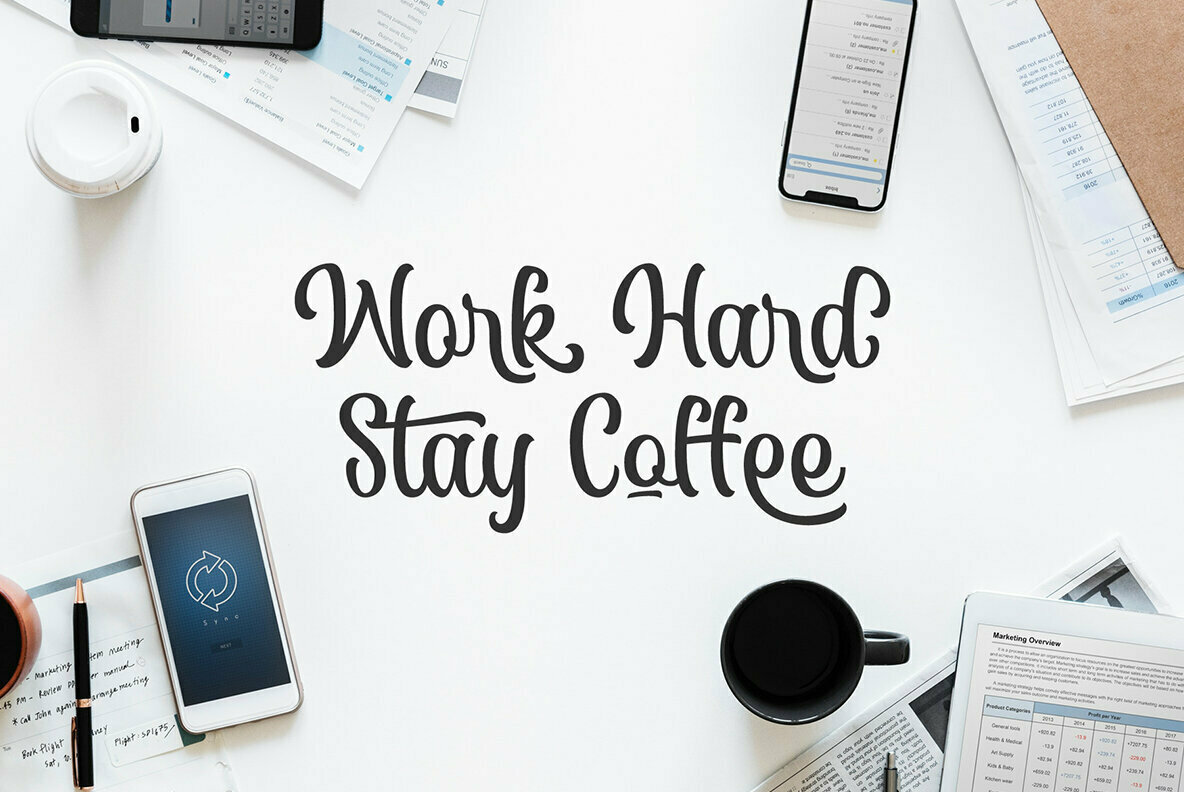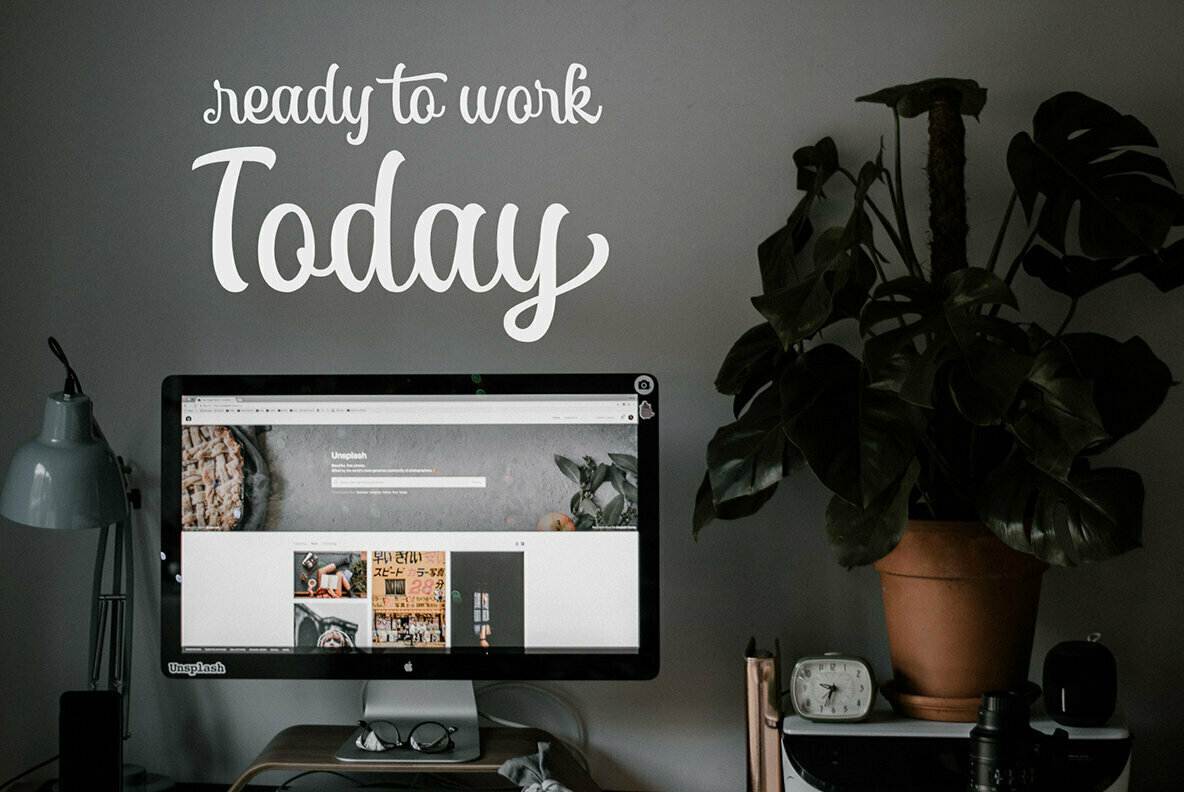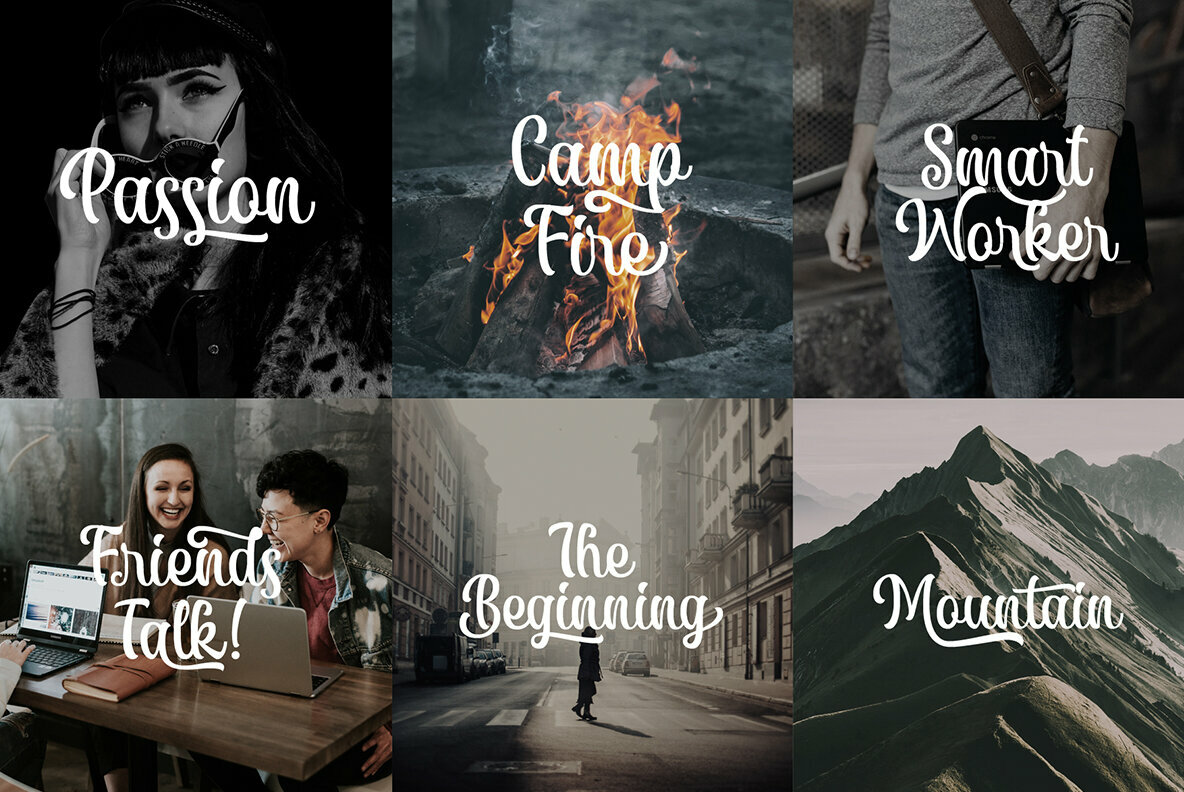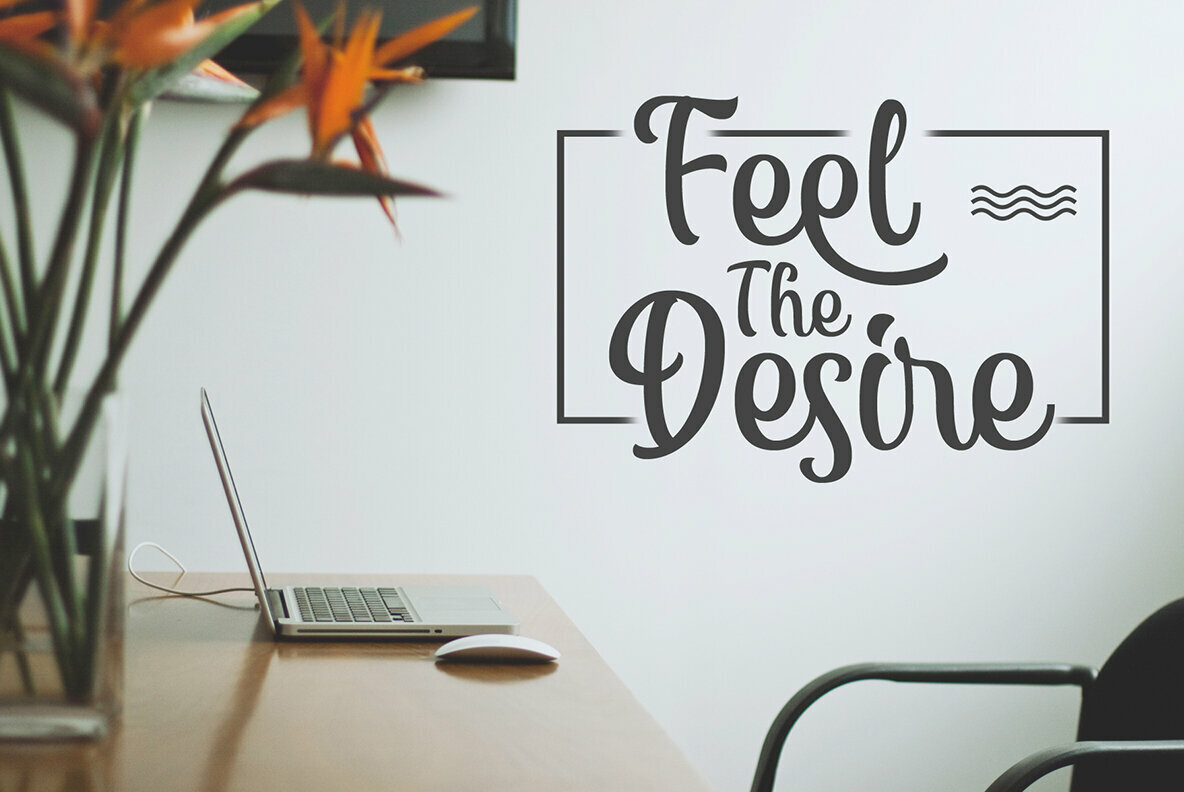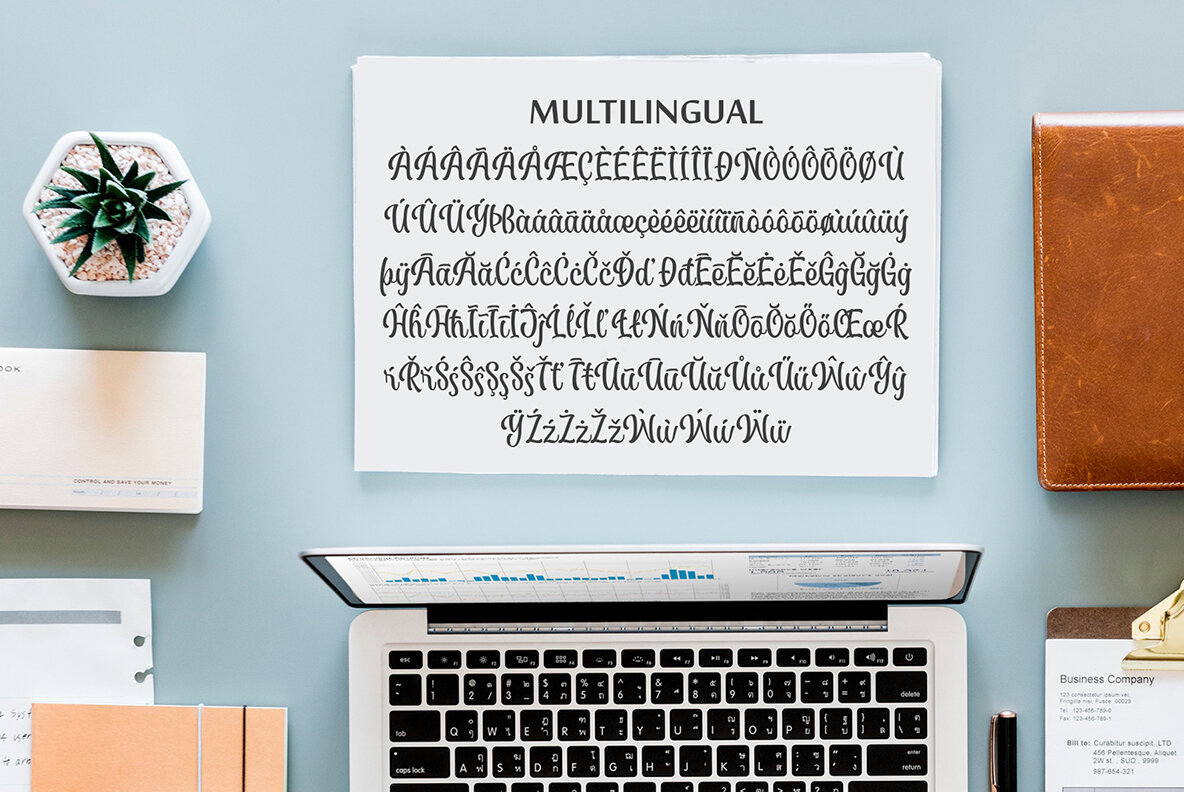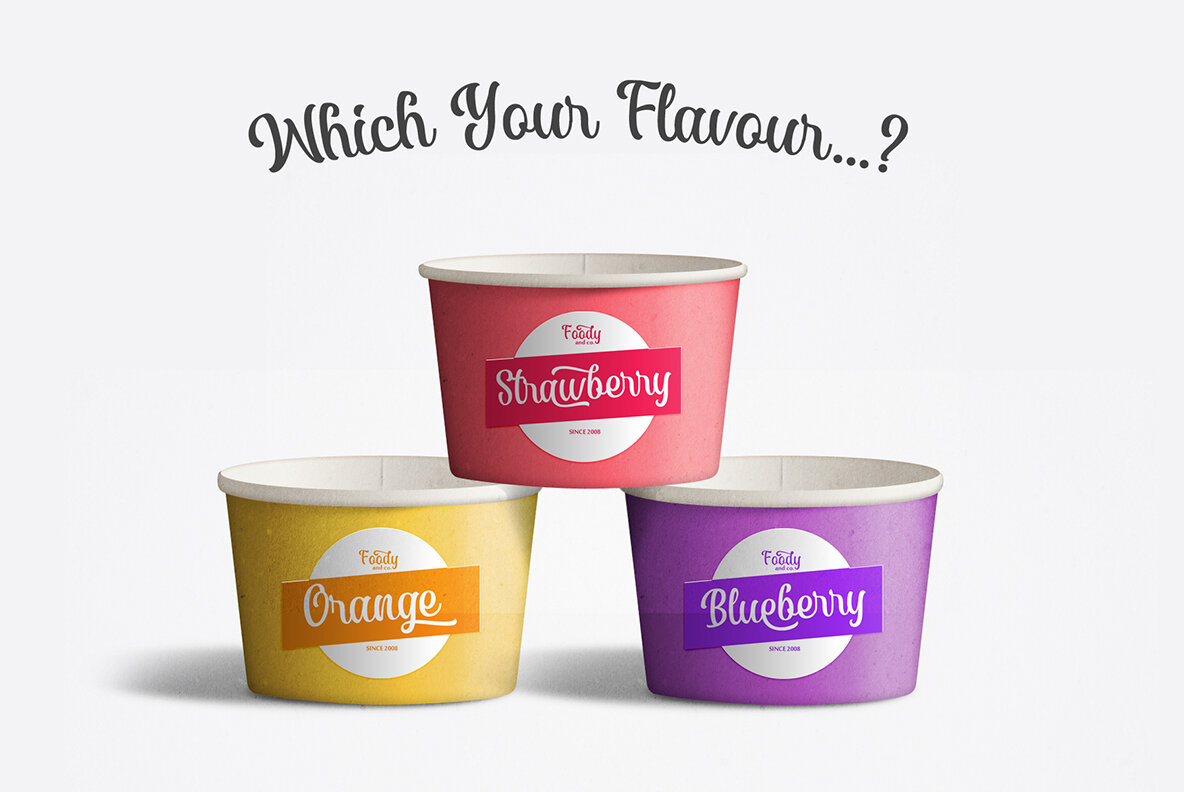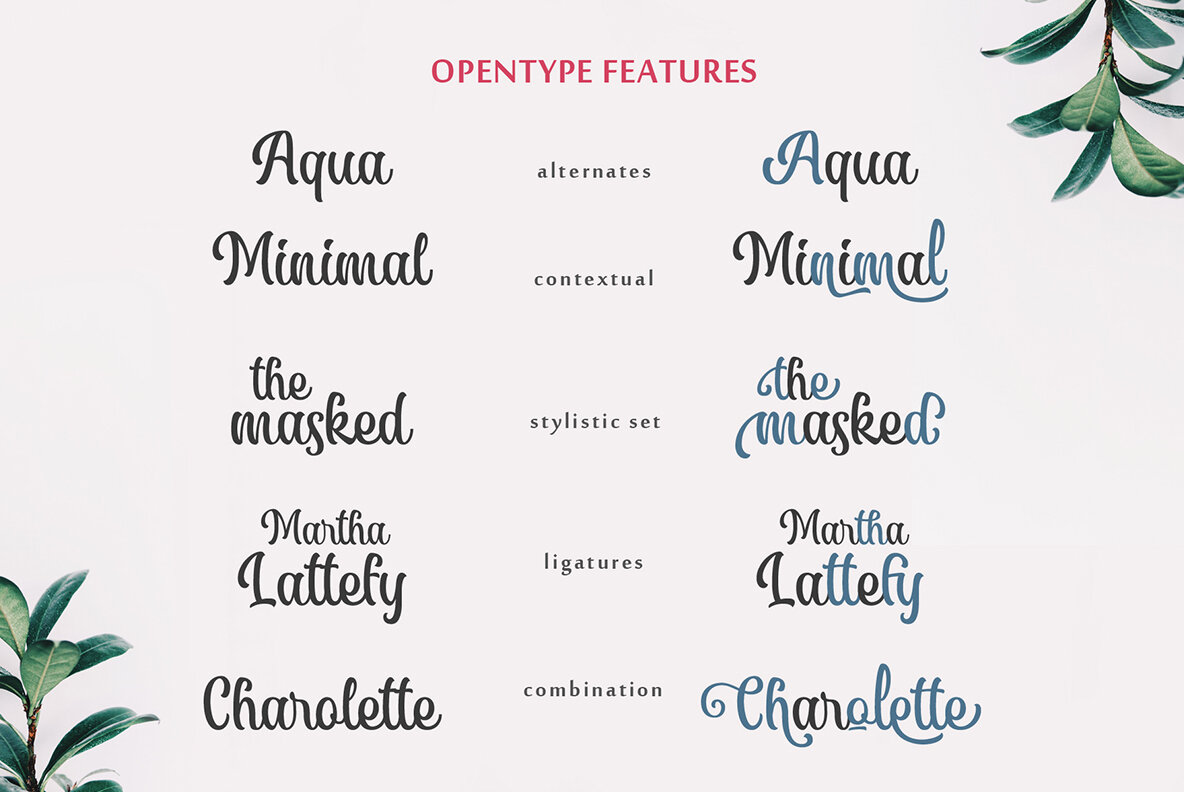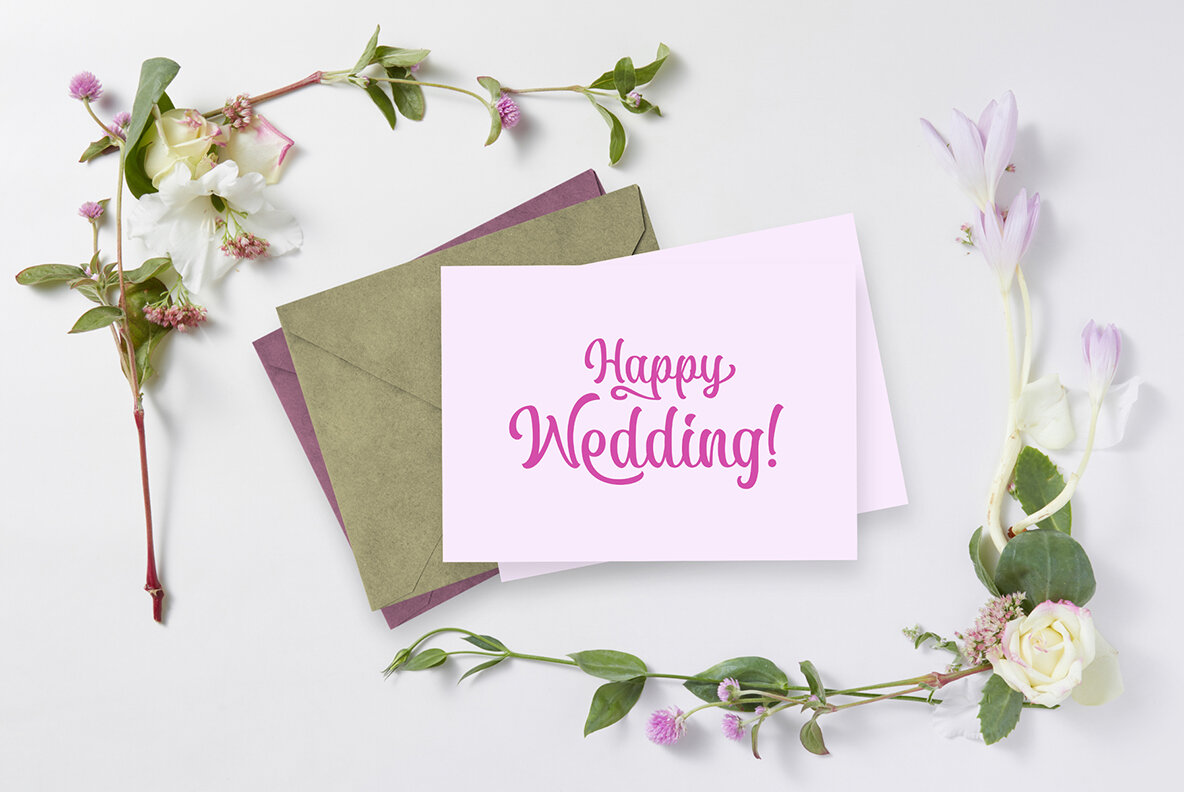
Wishteria Font
Wishteria
Wishteria, crafted by Ahmad Ramzi Fahruddin, brings a playful yet formal aesthetic to design projects, particularly those aiming for a neat and stylish outcome. Its solid strokes maintain a minimalist appeal, making it ideal for both body text and copy in professional settings. The typeface encompasses a rich selection of over 390 glyphs, allowing for creative and elegant lettering.Wishteria: Playful Formal Typeface for Sophisticated Designs